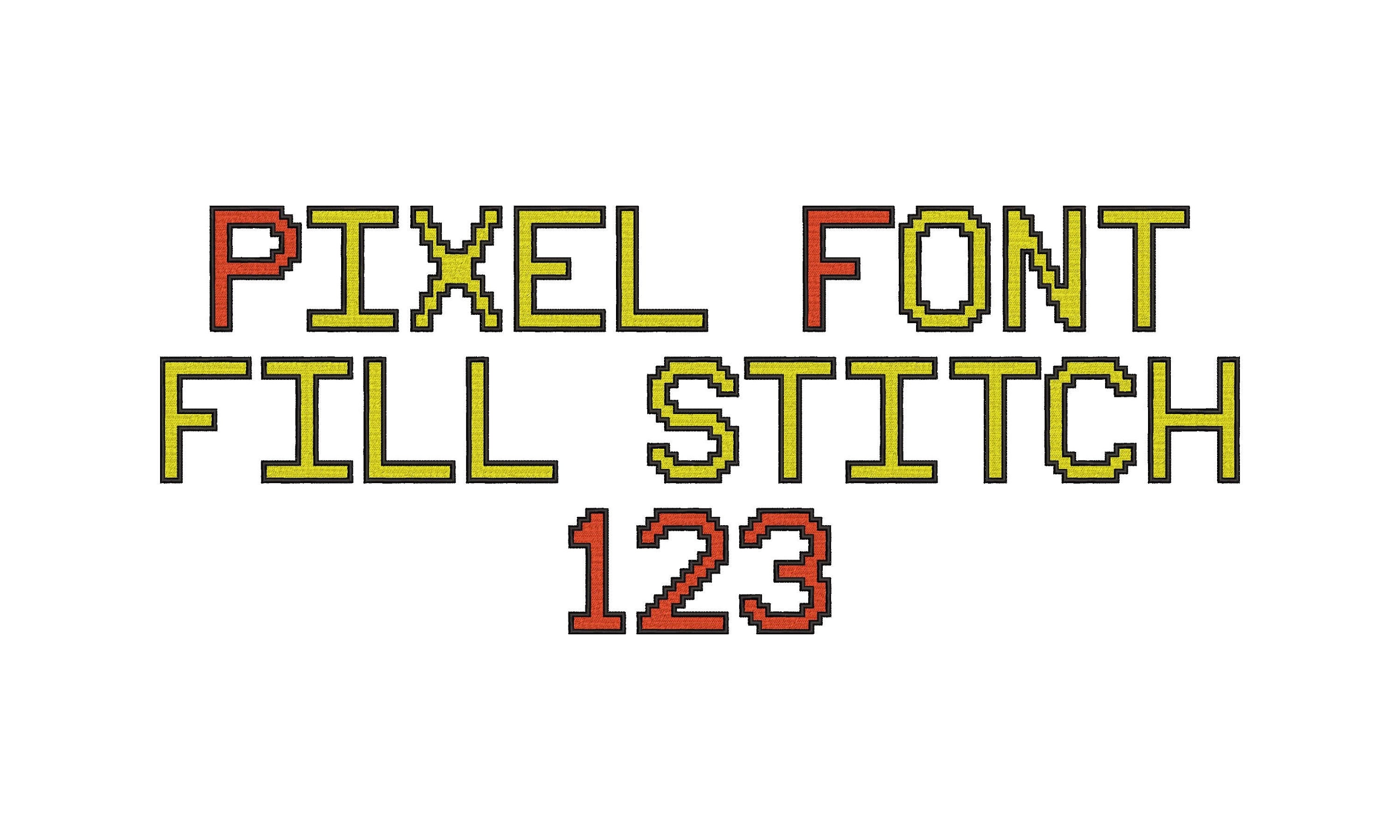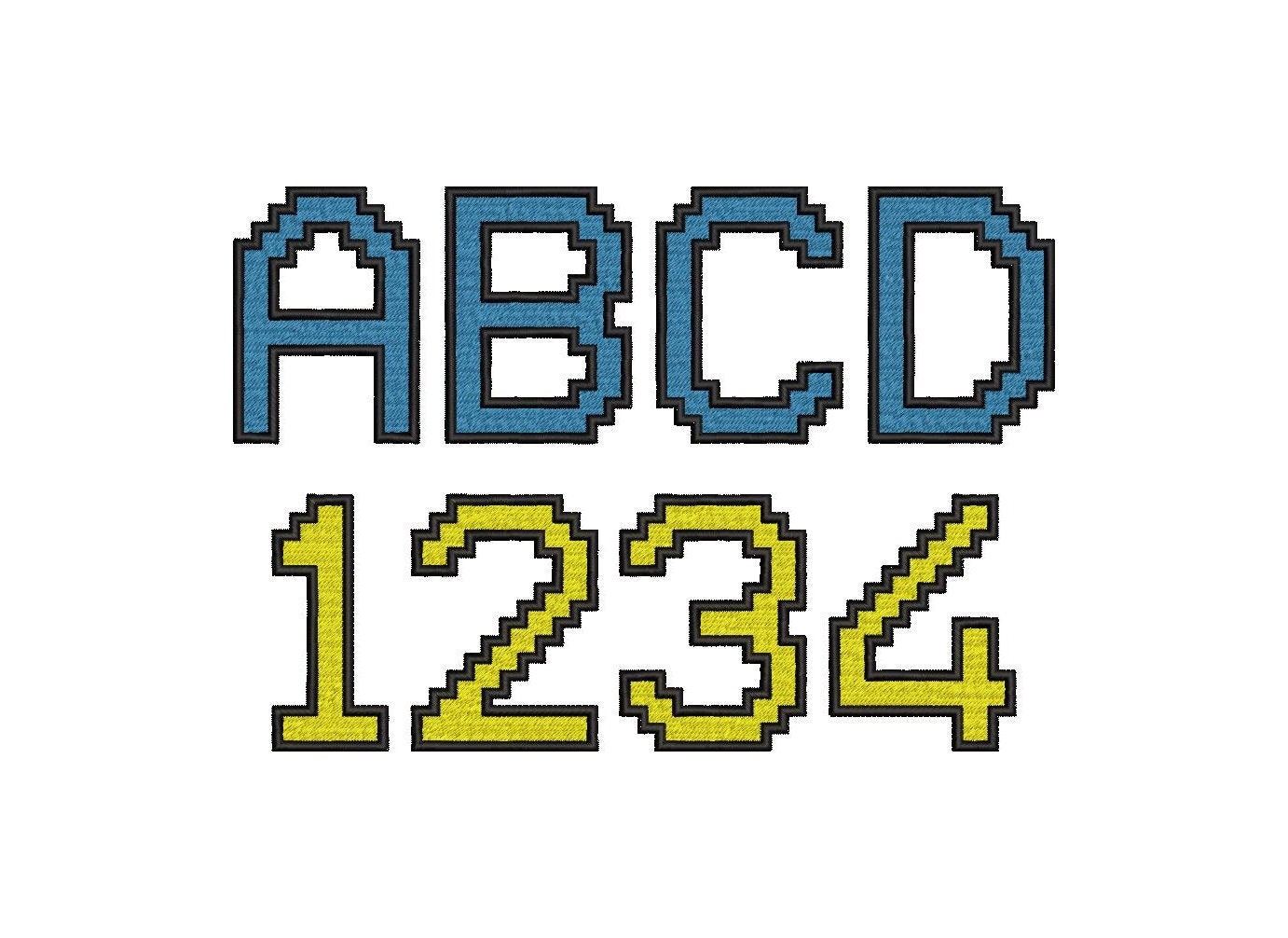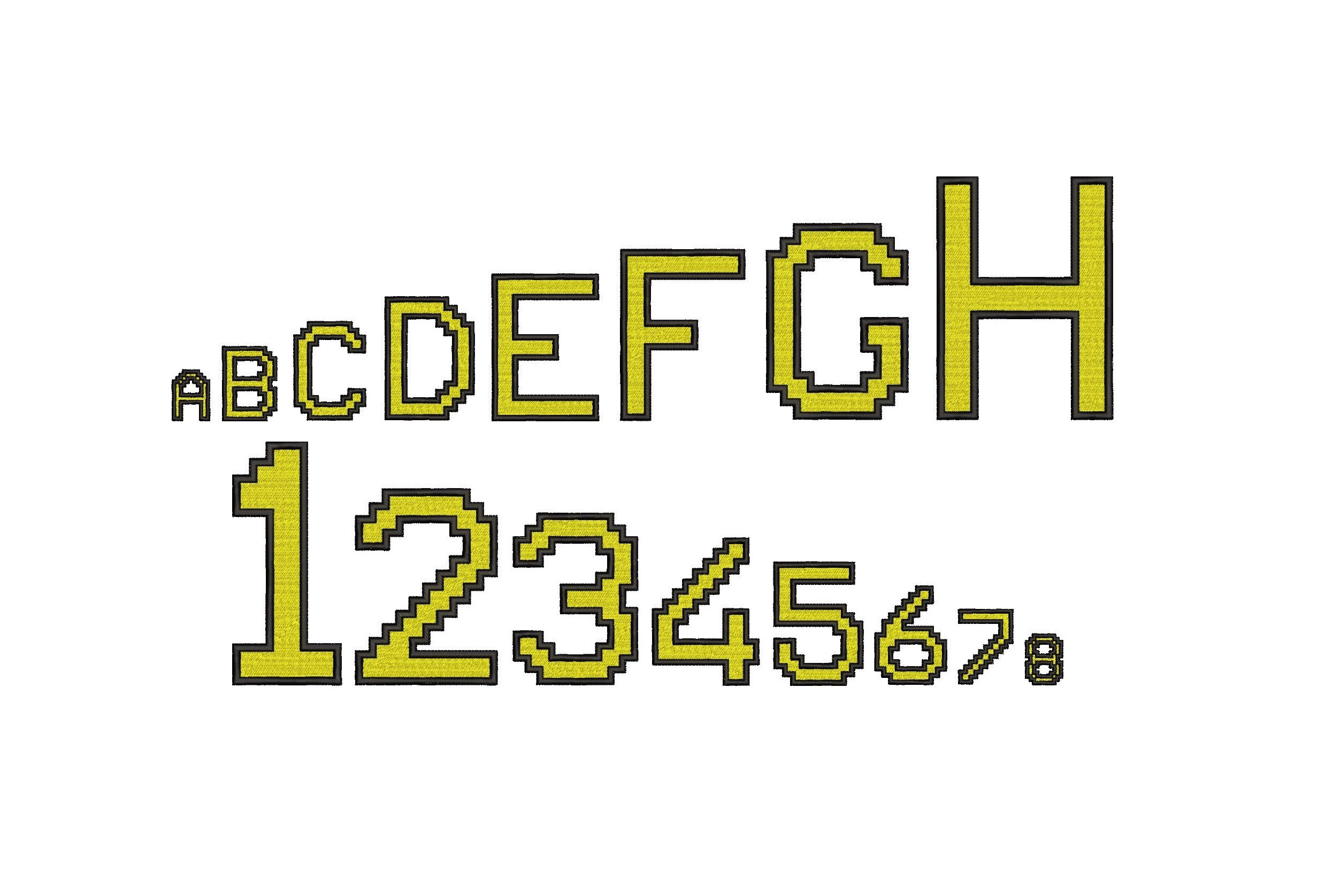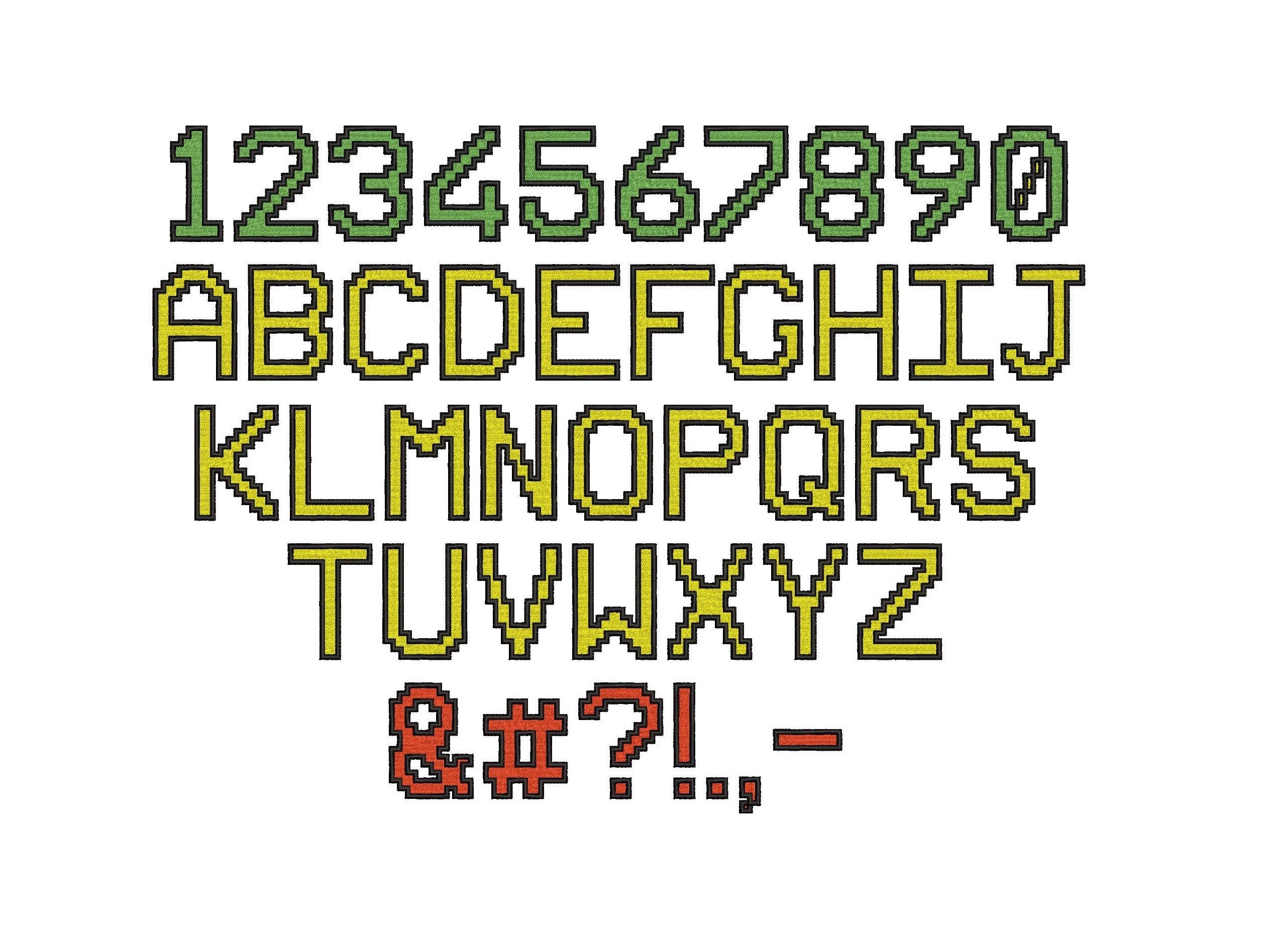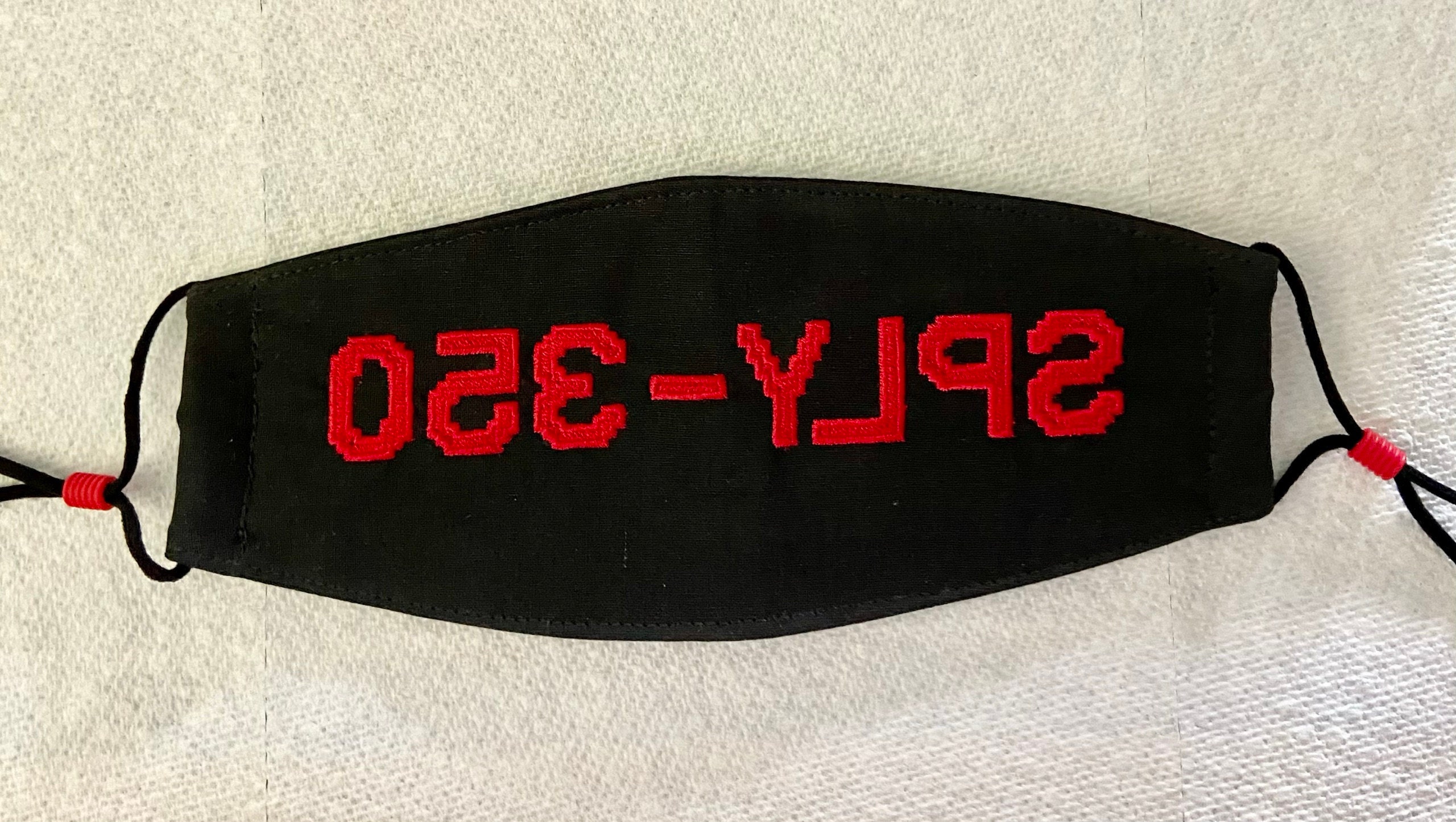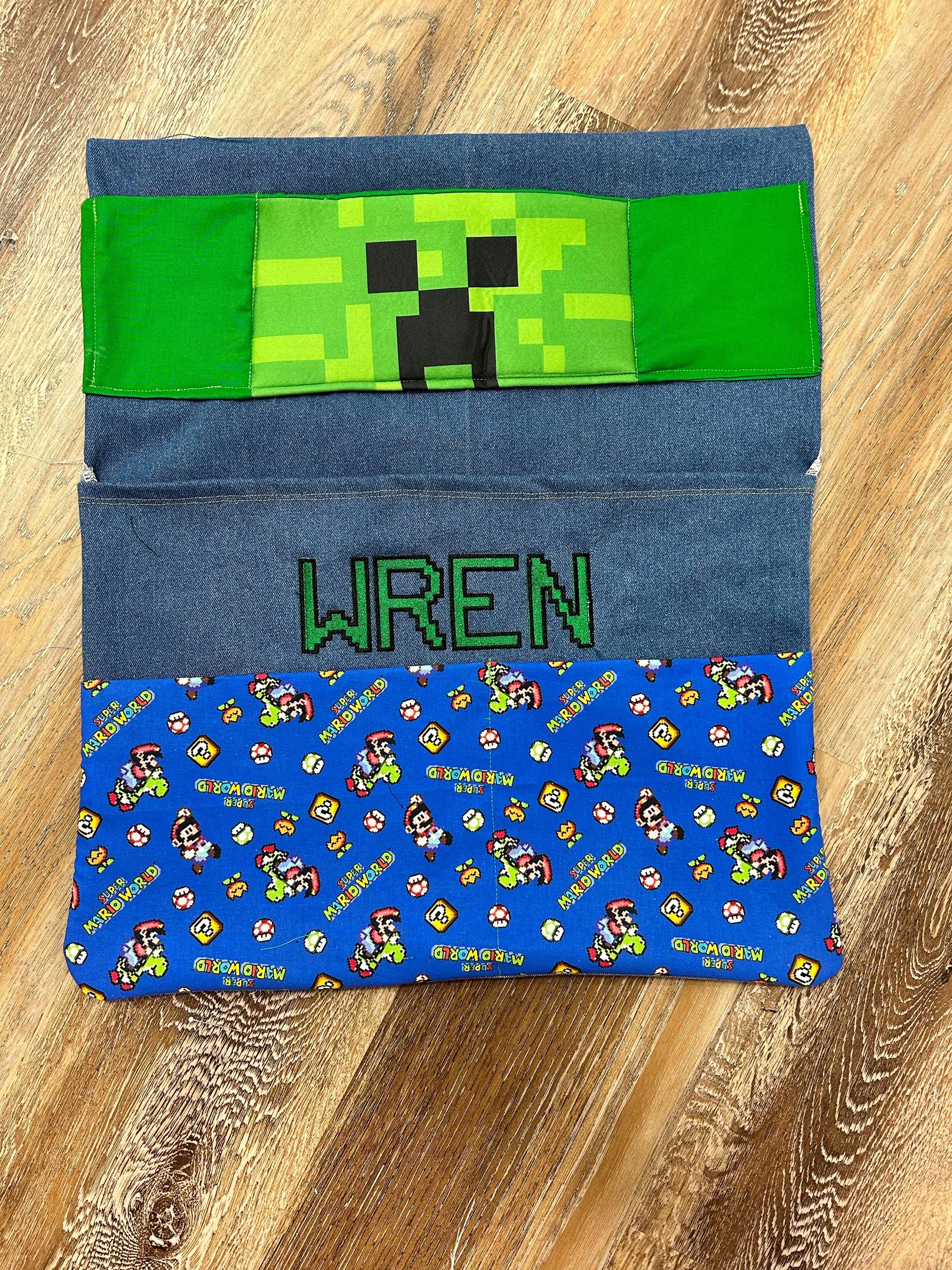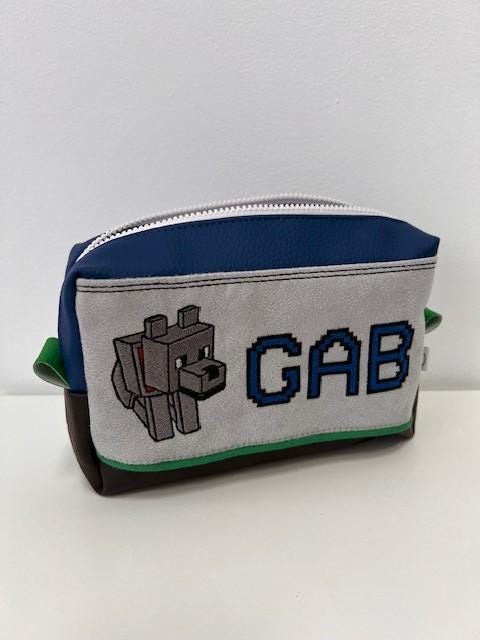
Miner Bricks Pixel Font fill stitch machine embroidery design, alphabet, monogram, pixel brick gamer whole alphabet
Whole alphabet A-Z, uppercase letters, numbers 0-9 and special punctuation marks.